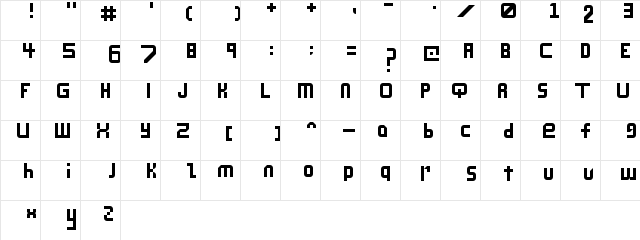
bellafonte Regular
| Designer | ferrr016 |
bellafonte is a composed and adaptable typeface that performs quietly and consistently across a wide range of design contexts.